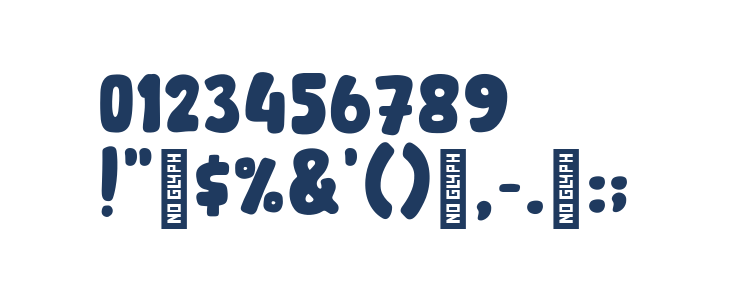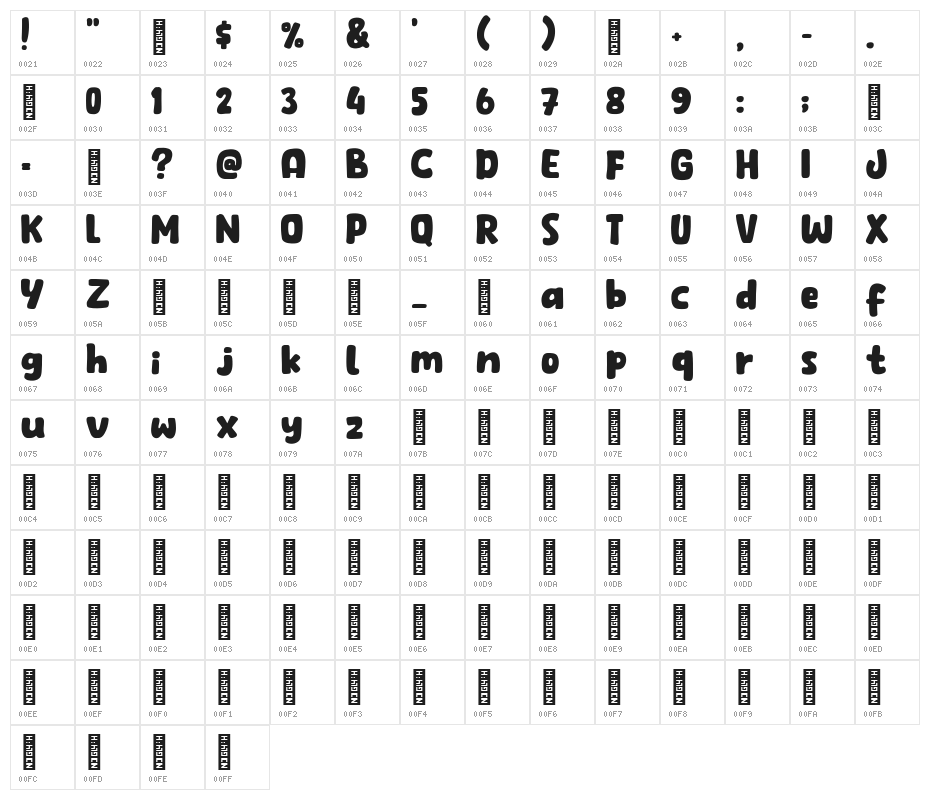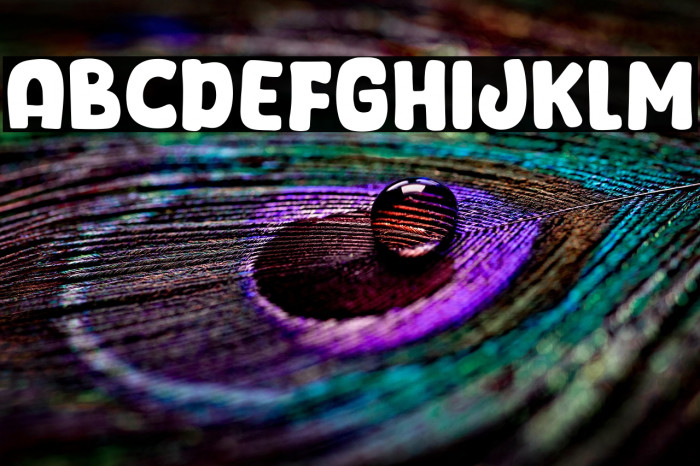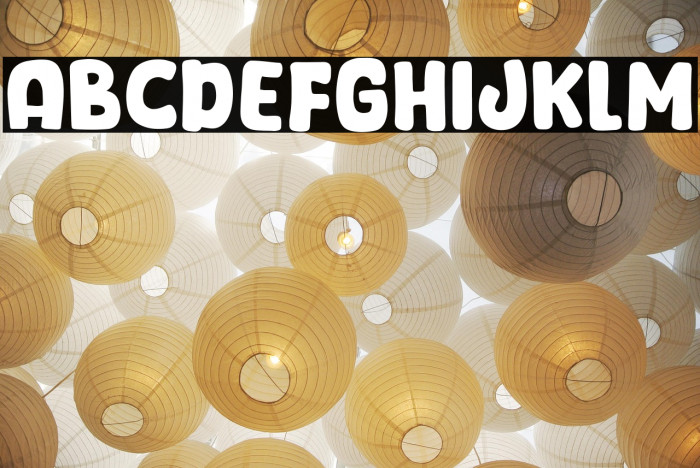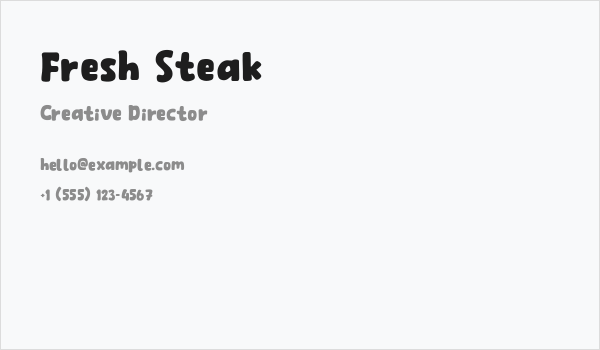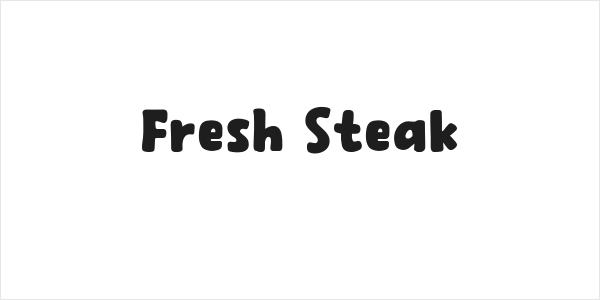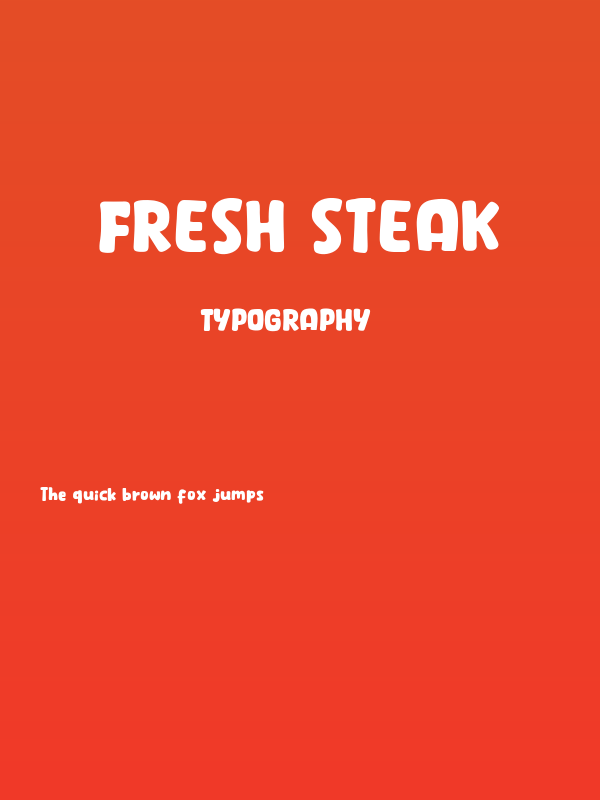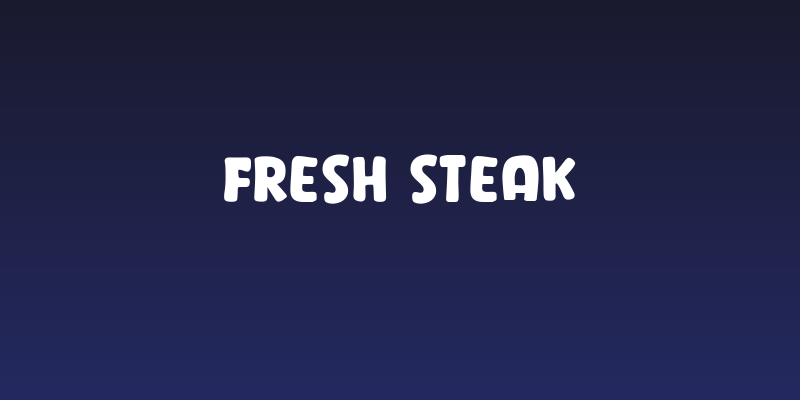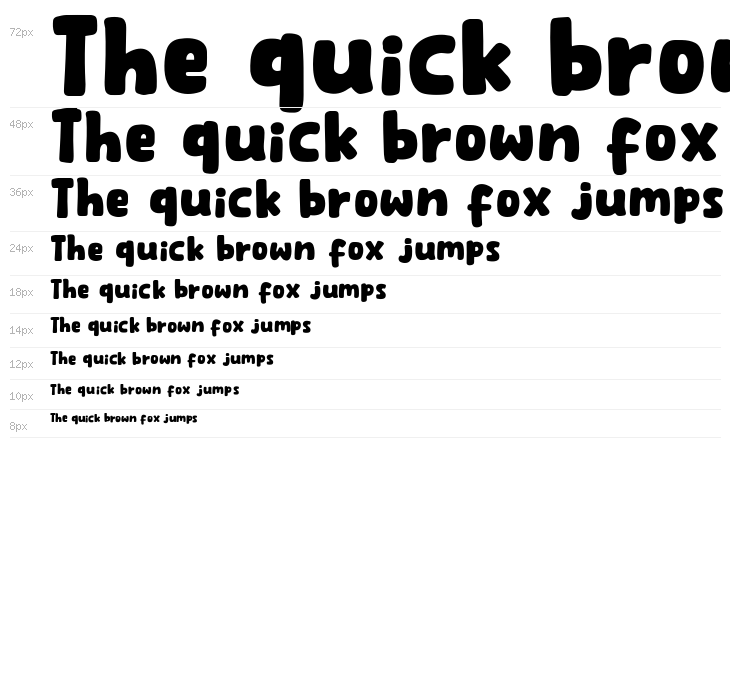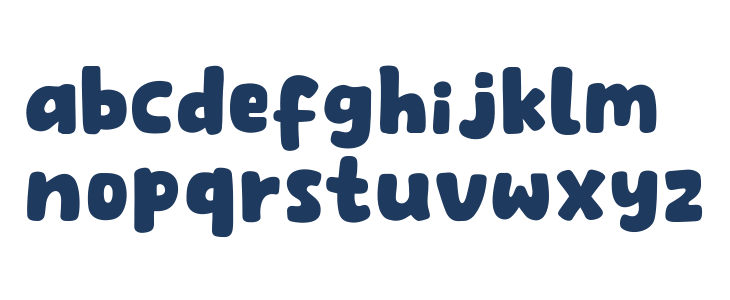
Fresh Steak Font
Fresh Steak Description
This playful and bold font features rounded, thick characters that exude a friendly and approachable vibe. The letters are uniformly bold with a slightly irregular shape, giving them a hand-drawn appearance. The numbers and special characters maintain the same playful style, ensuring consistency across all elements. The font's design is perfect for capturing attention while maintaining readability, making it suitable for a variety of creative projects. Its unique style stands out, making it ideal for designs that require a touch of whimsy and fun.
| Proposed Projects | Ideal for children's books, playful branding, casual invitations, and creative posters. |